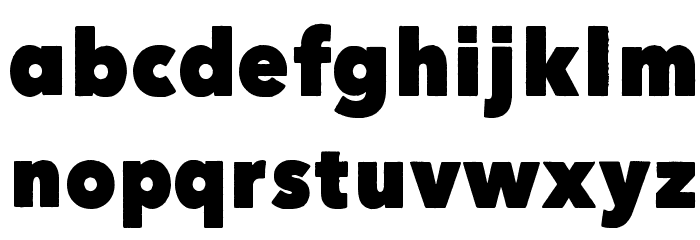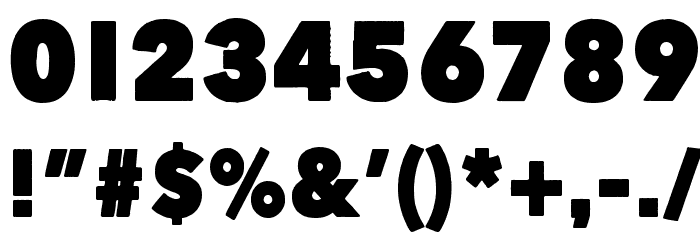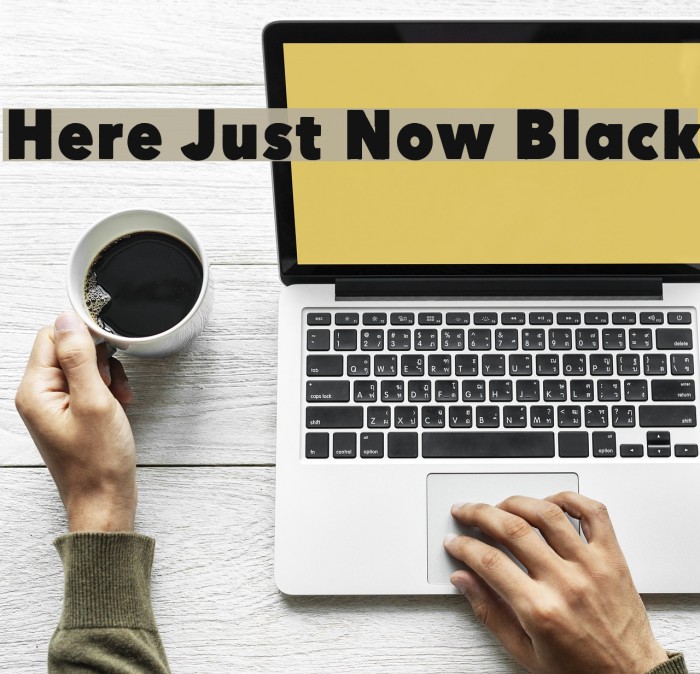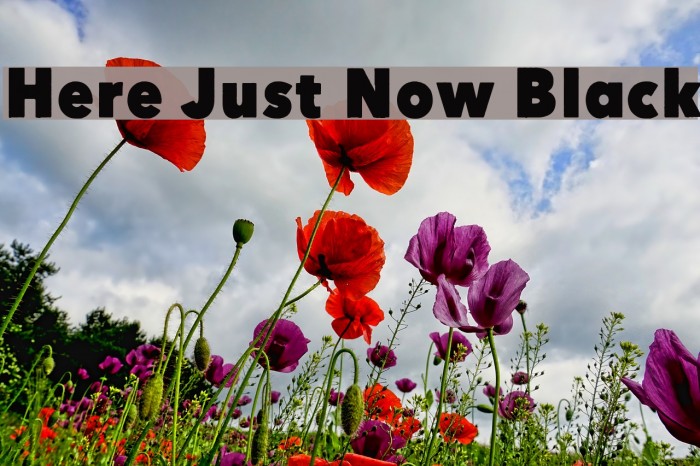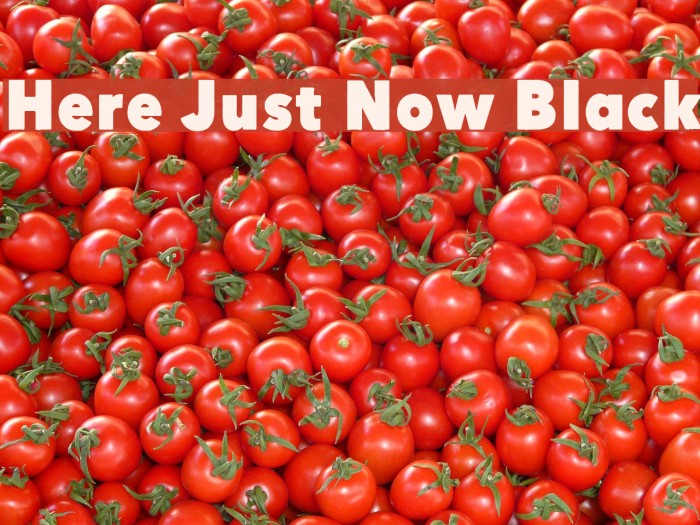
Here Just Now Black Font
This font features bold, thick strokes with a strong presence, making it highly suitable for attention-grabbing designs. The characters are uniformly wide, with a consistent stroke thickness that gives it a robust and solid appearance. The uppercase and lowercase letters maintain a cohesive style, with rounded edges that soften the overall look. The numerals and special characters are designed to match the boldness of the alphabet, ensuring a harmonious visual experience across all text elements. This font is ideal for projects that require a powerful and impactful typeface, such as posters, headlines, and branding materials.
A bold, thick-stroked font with a strong, cohesive style.
- Proposed Projects: Ideal for posters, headlines, branding materials, and any design requiring a strong visual impact.